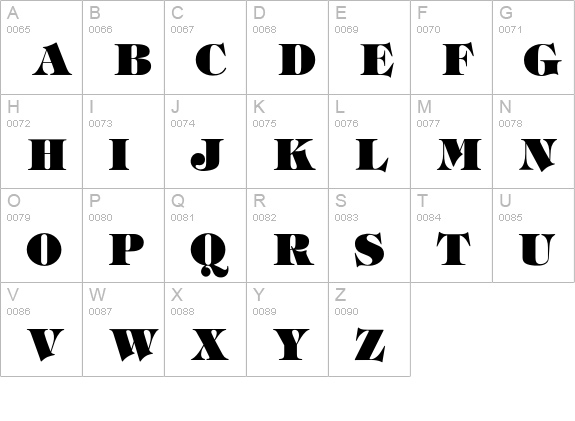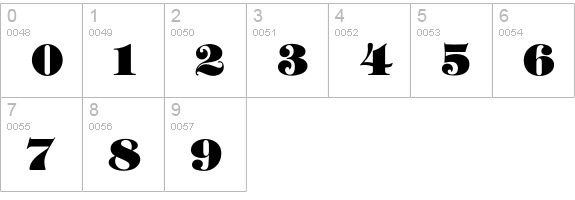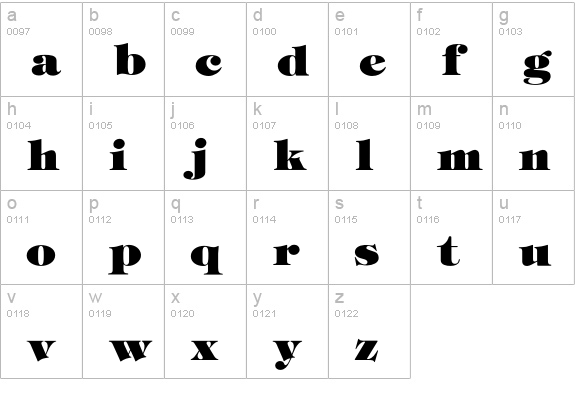
TiffanyHeavy Font Details
Introducing TiffanyHeavy, a stunning and versatile font that effortlessly adds a touch of elegance and sophistication to any design project. With its bold and commanding presence, TiffanyHeavy is perfect for creating eye-catching headlines, logos, and branding materials that demand attention. This font boasts a unique combination of sharp edges and smooth curves, resulting in a visually striking aesthetic that is sure to captivate and inspire. Its strong and assertive letterforms exude confidence and power, making it an excellent choice for projects that require a strong and impactful visual impact. What sets TiffanyHeavy apart from other fonts is not just its exceptional design, but also its accessibility. We are thrilled to share that TiffanyHeavy is freely available to download at FontsMarket.com. This means that designers, creatives, and enthusiasts alike can enjoy the benefits of this remarkable font without any financial constraints. Whether you're working on a personal project or a professional endeavor, TiffanyHeavy offers limitless possibilities. Its versatility allows it to seamlessly adapt to various design styles, making it suitable for a wide range of applications. From elegant wedding invitations to high-end fashion branding, TiffanyHeavy effortlessly adds a touch of sophistication and refinement. Furthermore, TiffanyHeavy is incredibly easy to work with. Its clean and well-organized letterforms ensure legibility, even at smaller sizes. This makes it perfect for body text, captions, and other instances where clarity is paramount. In conclusion, TiffanyHeavy is a must-have for any designer looking to make a bold statement. With its breathtaking design, free availability at FontsMarket.com, and unrivaled versatility, TiffanyHeavy is a font that will elevate your designs to new heights. Download it today and unleash your creativity like never before.